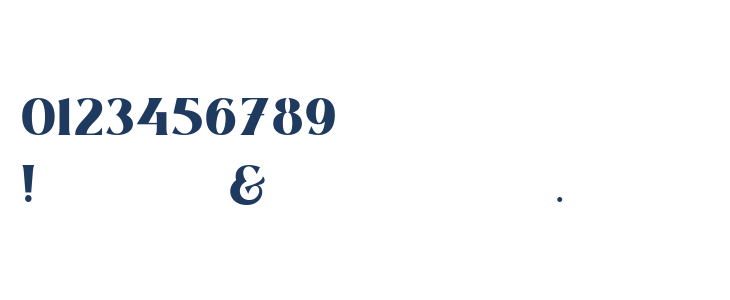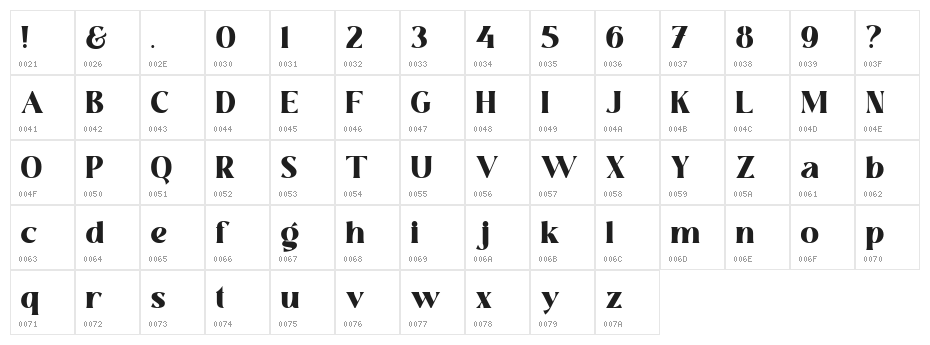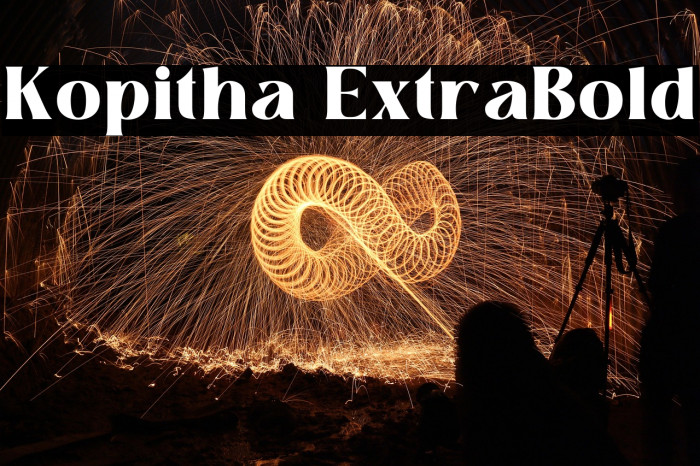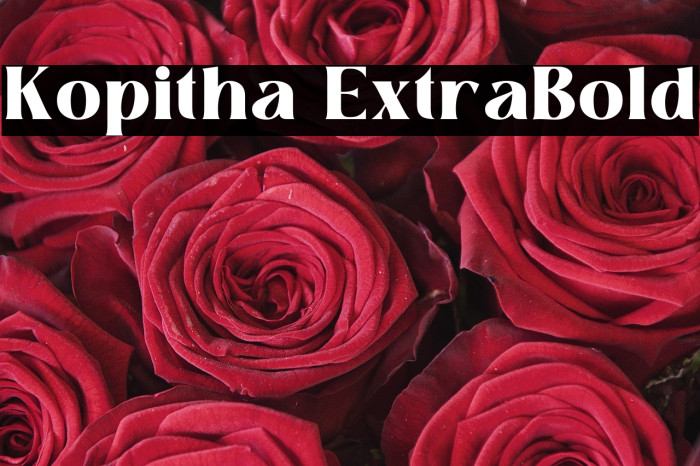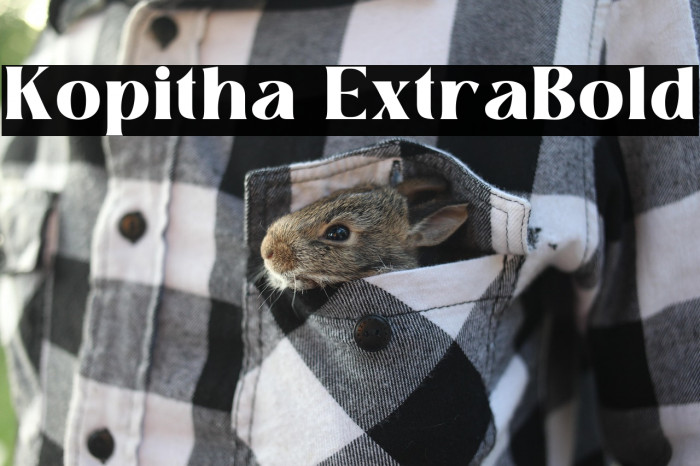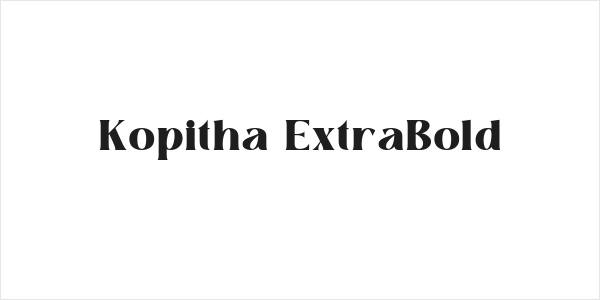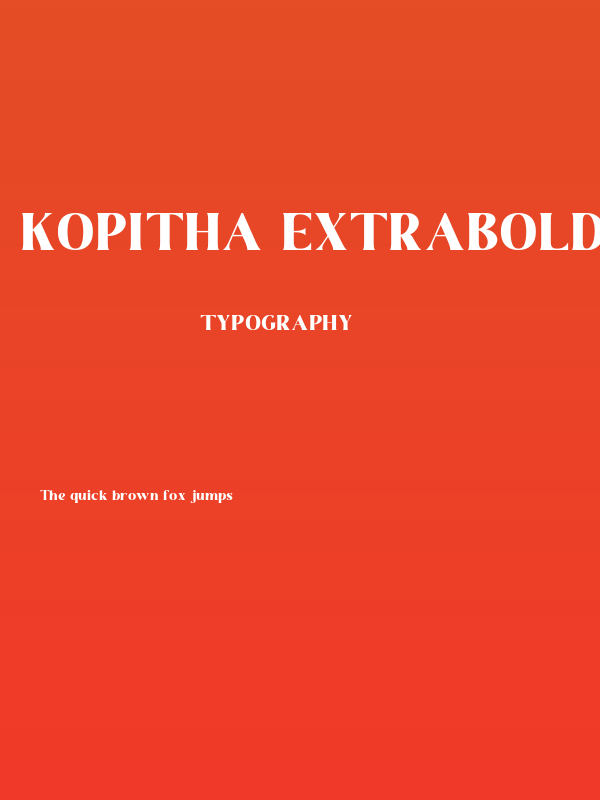
Kopitha ExtraBold Font
Kopitha ExtraBold Description
This font features a bold and striking design with high contrast between thick and thin strokes, giving it a dramatic and elegant appearance. The serifs are pronounced and sharp, adding a touch of sophistication and classic charm. The uppercase letters are particularly commanding, with a strong presence that makes them ideal for headlines and titles. The lowercase letters maintain the boldness while offering a slightly softer look, ensuring readability. The numerals are consistent with the overall style, providing a cohesive look across all characters. Special characters like the ampersand and exclamation mark are designed with the same attention to detail, making them stand out beautifully.
| Proposed Projects | Ideal for luxury branding, editorial design, book covers, and high-impact headlines. |